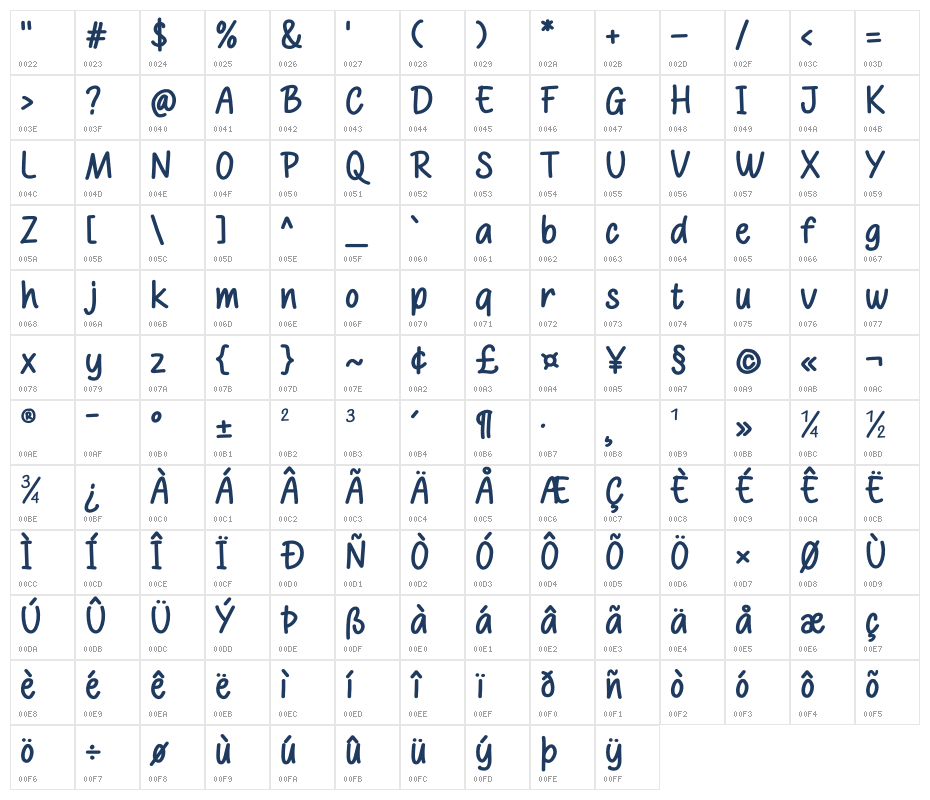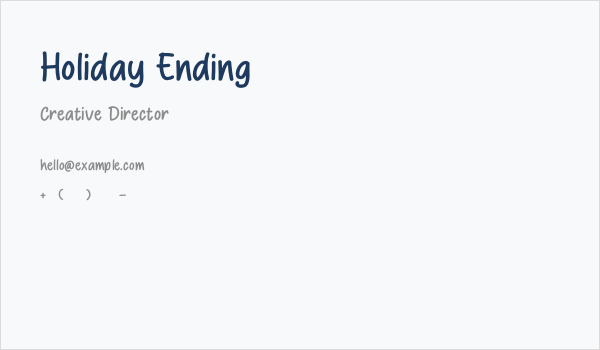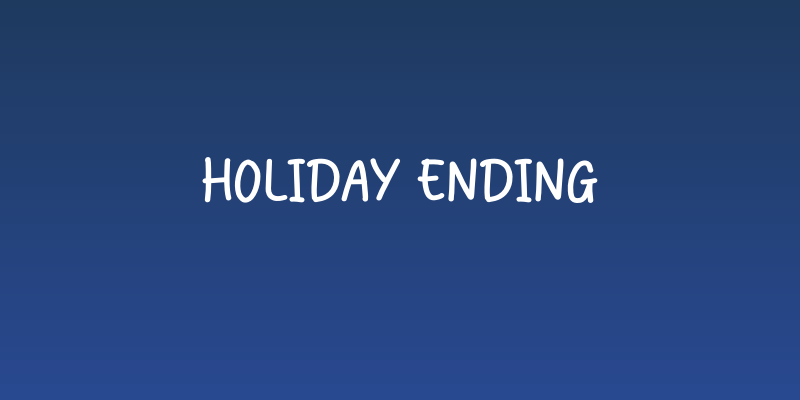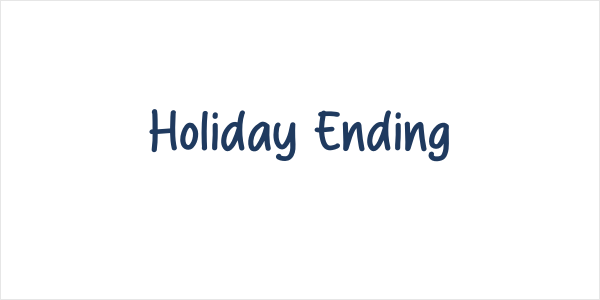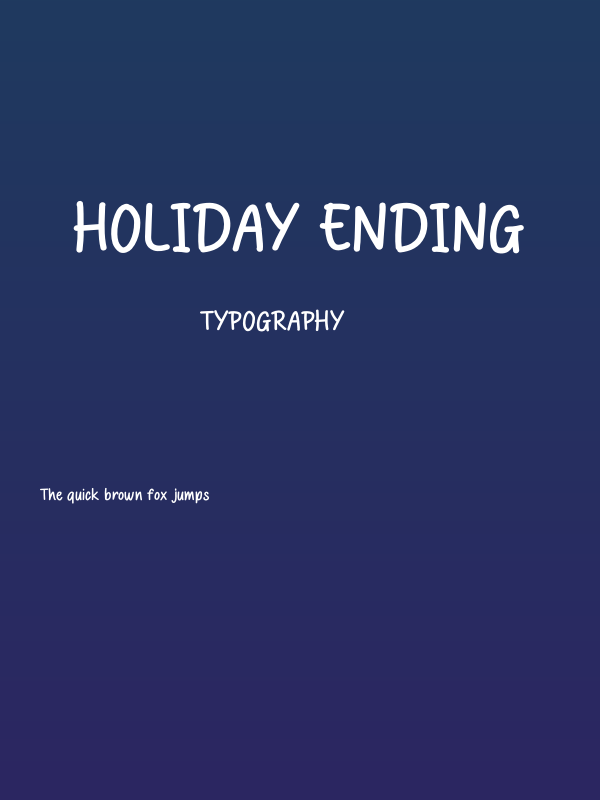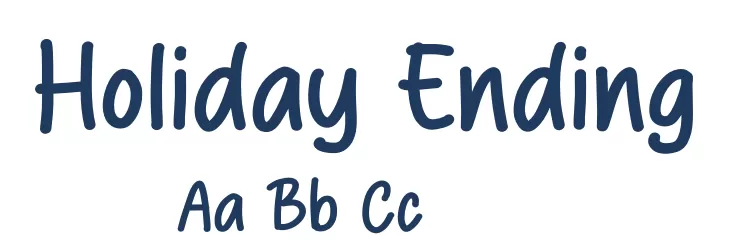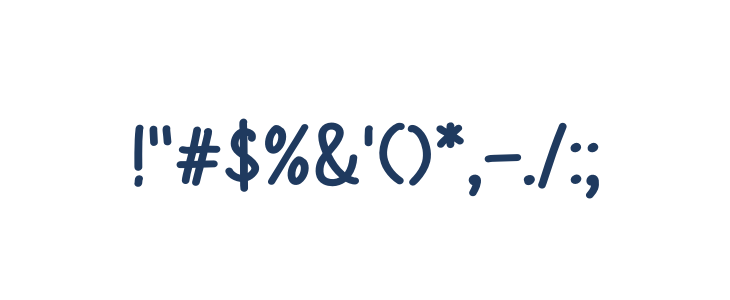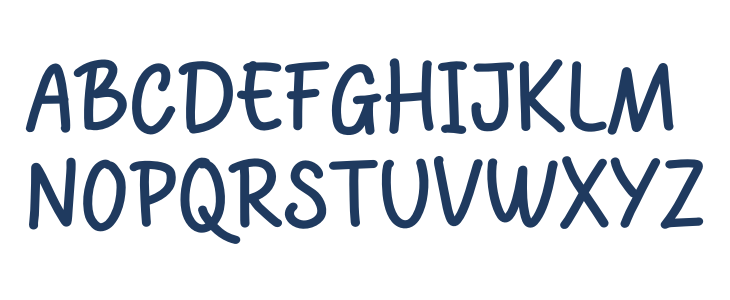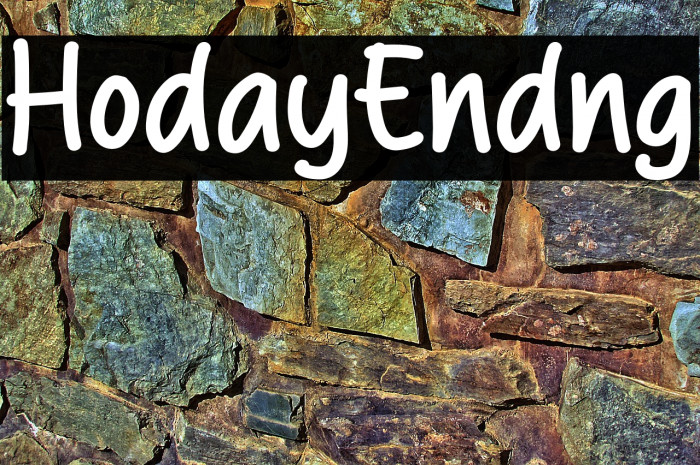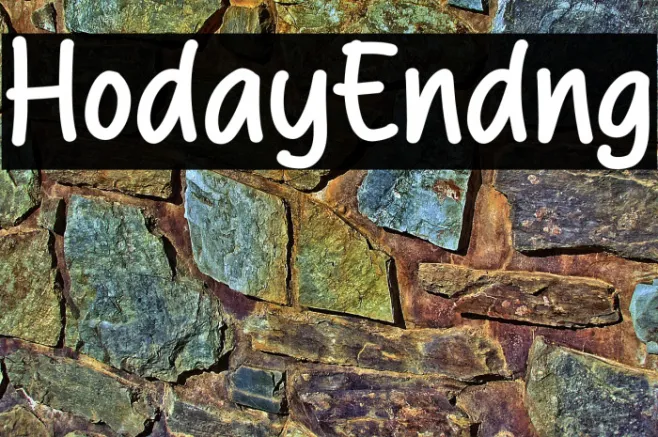
Holiday Ending Font
Holiday Ending Description
A casual, handwritten style font with rounded, playful characters.
| Overall Style | Casual, Friendly, Playful |
| Use Case | Headlines, Body text, Logos, Invitations |